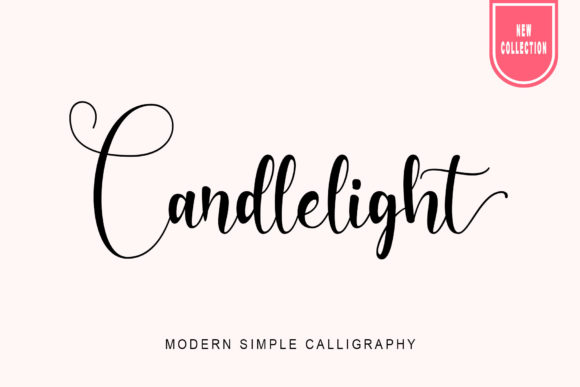
Behold the Candlelight Font - a remarkable script font that exudes elegance, class, and modern sophistication. Its captivating design brings a fresh breath of creativity to your digital endeavors, transforming ordinary text into captivating masterpieces.
Crafted by the talented Stefani Letter, Candlelight Font stands as a testament to sheer artistry. Its meticulously designed strokes and smooth curves evoke a sense of timeless charm, effortlessly capturing the essence of sophisticated elegance. Whether you're a seasoned professional seeking to elevate your business's image or a creative enthusiast yearning for a unique font that reflects your individuality, Candlelight Font is the perfect solution.
Journey into a world of endless possibilities with Candlelight Font. Its versatility knows no bounds, adapting seamlessly to a myriad of creative projects. Craft unforgettable logos that exude professionalism and leave a lasting impression on your clientele. Design stunning branding materials that radiate elegance and captivate your target audience. Create breathtaking invitations and stationery that set the tone for memorable occasions. Unleash your creativity with social media posts that shimmer with visual appeal. Candlelight Font empowers you to transform your ideas into tangible works of art, leaving a trail of awe-inspiring designs wherever you go.
Immerse yourself in the beauty and grace of Candlelight Font. Its PUA encoding opens up a world of glyphs and swashes, effortlessly accessible at your fingertips. Explore the depths of creativity, experimenting with various combinations to add an extra layer of visual intrigue to your designs.
With Candlelight Font, the possibilities are infinite. Its versatility extends to a vast array of projects, including logos, branding, invitations, stationery, wedding designs, and social media posts. Embrace the power of Candlelight Font and elevate your creations to new heights.